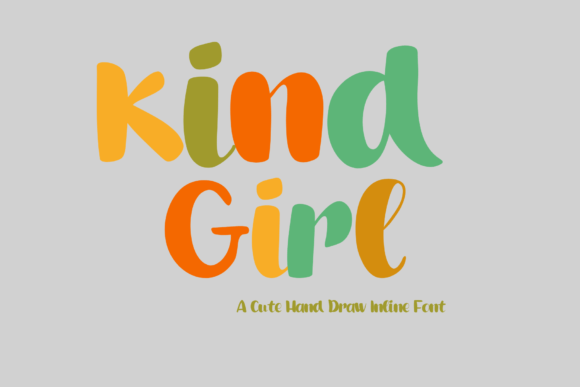
Attention, creative enthusiasts, graphic designers, and font lovers! Welcome to the world of Kind Girl Font – a playful and vivacious display font that will add a sprinkle of summery delight and casual charm to your designs. Created by the talented nstudio design, Kind Girl Font is perfect for capturing the warmth and cheerfulness of life.
This charming font dances across your screens, exuding a captivating handwritten style that will instantly draw the eyes of your audience. Picture this: a cool summer breeze carrying the scent of blooming flowers and the rustle of leaves. Kind Girl Font effortlessly captures this serene essence, transforming your designs into a captivating visual symphony.
Adorn your t-shirts with Kind Girl Font's playful strokes, letting the words dance across the fabric like sunbeams shimmering on a lake. Create cheerful stickers that radiate positivity and spread joy wherever they're placed. Design tote bags that become a fashion statement, carrying your belongings with a touch of whimsical flair.
Imagine your candy packaging transformed into a delightful treat for the eyes, inviting customers with its charming handwritten font. Let Kind Girl Font dance across food menus, inviting diners to embark on a culinary journey filled with flavor and fun. The possibilities are endless, and the magic lies in your creative hands.
With Kind Girl Font, you have the power to invoke emotions, spark imagination, and create designs that resonate with your audience. Its versatility knows no bounds, from playful designs that make you smile to elegant creations that exude sophistication. Embrace the summery vibes and casual charm of Kind Girl Font, and watch your designs bloom into captivating masterpieces.